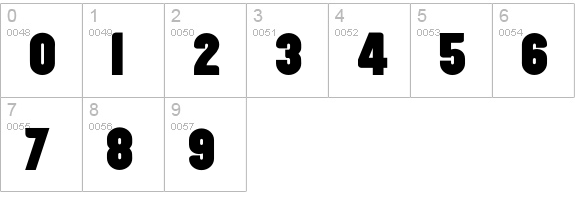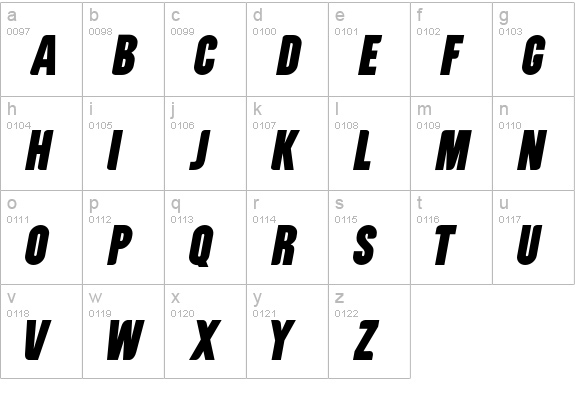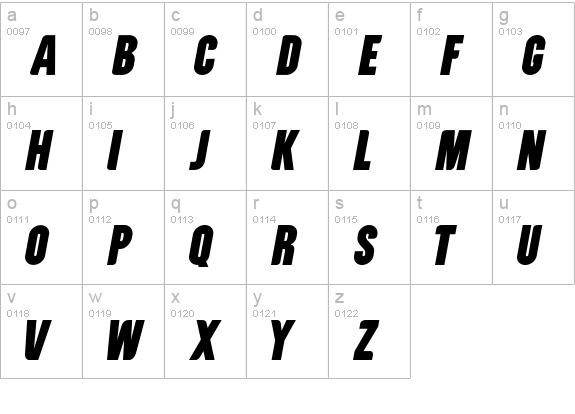
Pocketknife Font Details
Pocketknife font is a versatile and modern typeface that exudes a sleek and contemporary aesthetic. With its clean lines and sharp edges, this font is perfect for a wide range of design projects, from logos to branding materials to website headers. The sharp angles of the letters give Pocketknife font a bold and dynamic look that is sure to make a statement. What's even better is that Pocketknife font is available for free download at FontsMarket.com. This means you can easily access this stylish and eye-catching font without any cost, making it a valuable addition to your font collection. Whether you're a graphic designer, a creative professional, or just someone looking to spice up your projects with a fresh font, Pocketknife font is a fantastic choice that won't break the bank. Download it today and start creating stunning designs with ease.